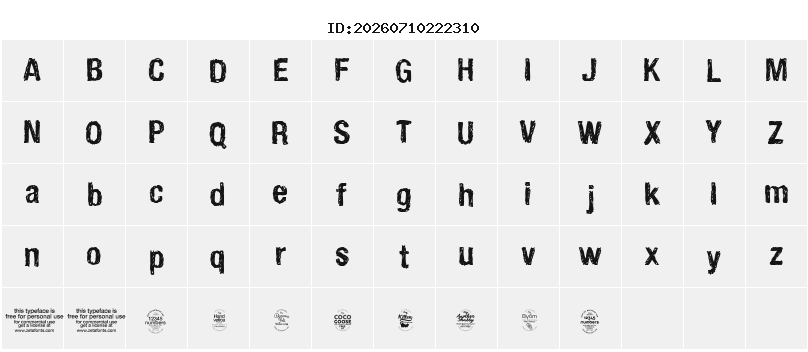
HandVetica Preview
• Font Name: HandVetica
• Full Font Name: HandVetica
• Designer: Cosimo Lorenzo Pancini
• Manufacturer: studio kmzero
About HandVetica.ttf
HandVetica.ttf is a modern, elegant sans-serif font designed for ultimate readability and visual harmony. Perfect for branding, headlines, web design, and print materials.